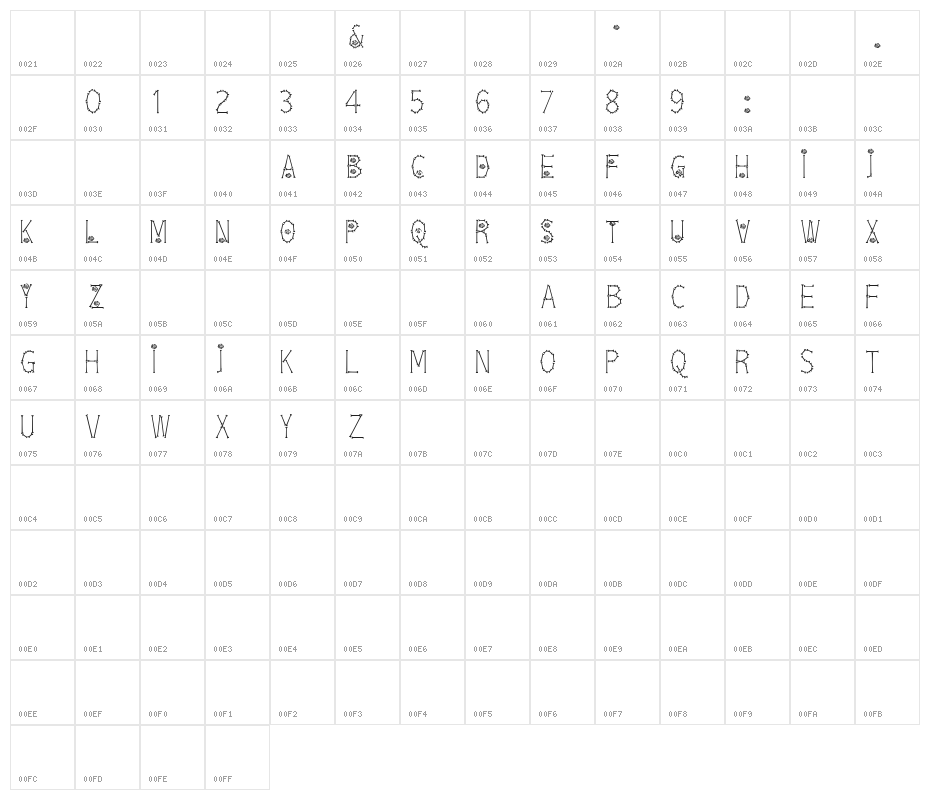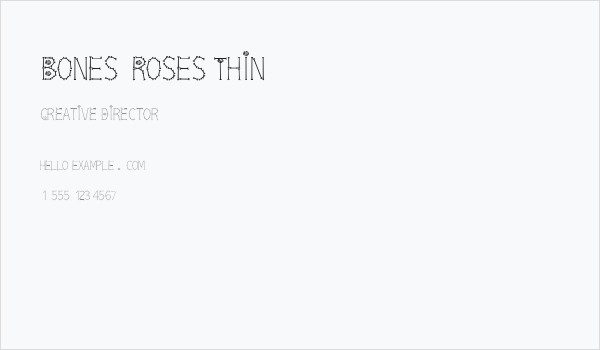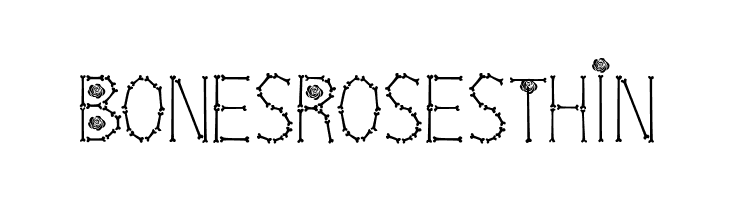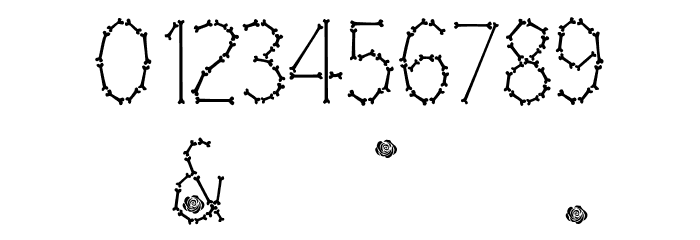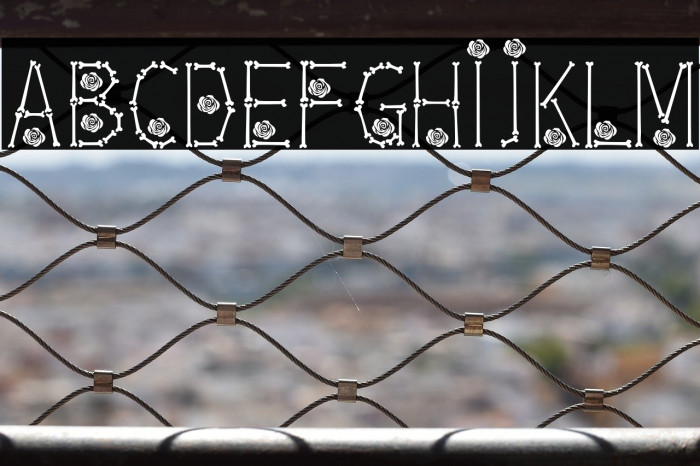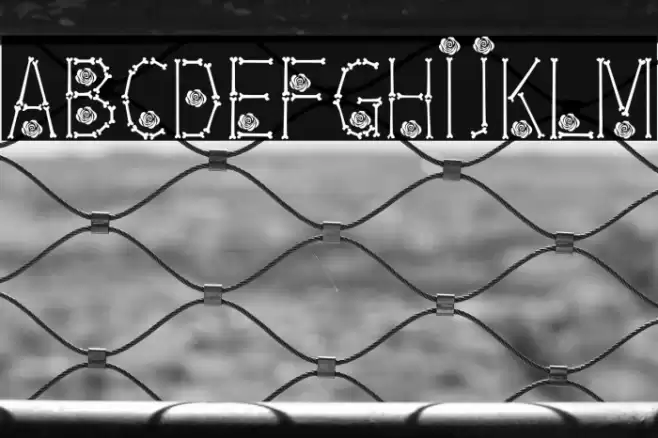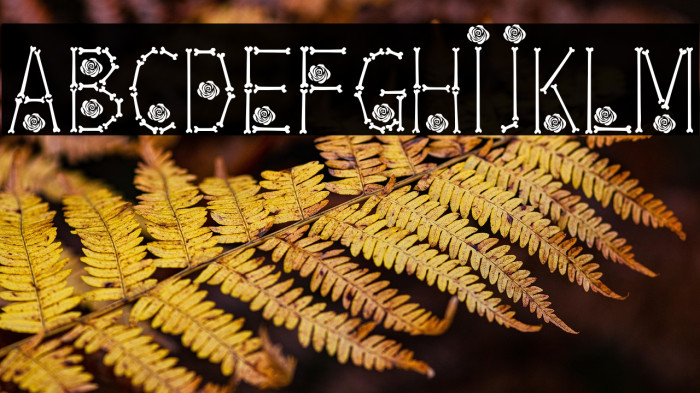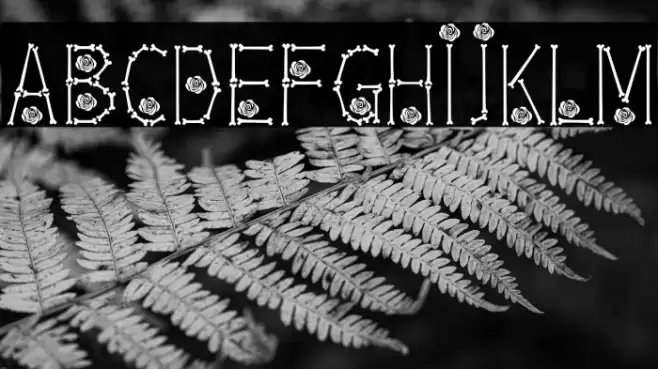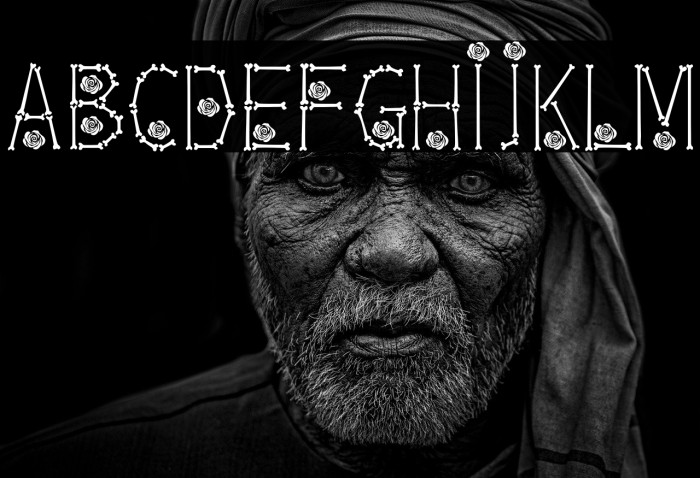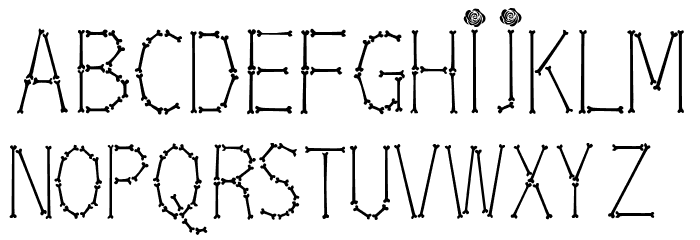
Bones Roses Thin Font
| Caz de utilizare | Logos, Posters, Invitations |
| Proiecte propuse | Ideal for Halloween-themed designs, gothic or horror movie posters, edgy fashion branding, and unique event invitations. |